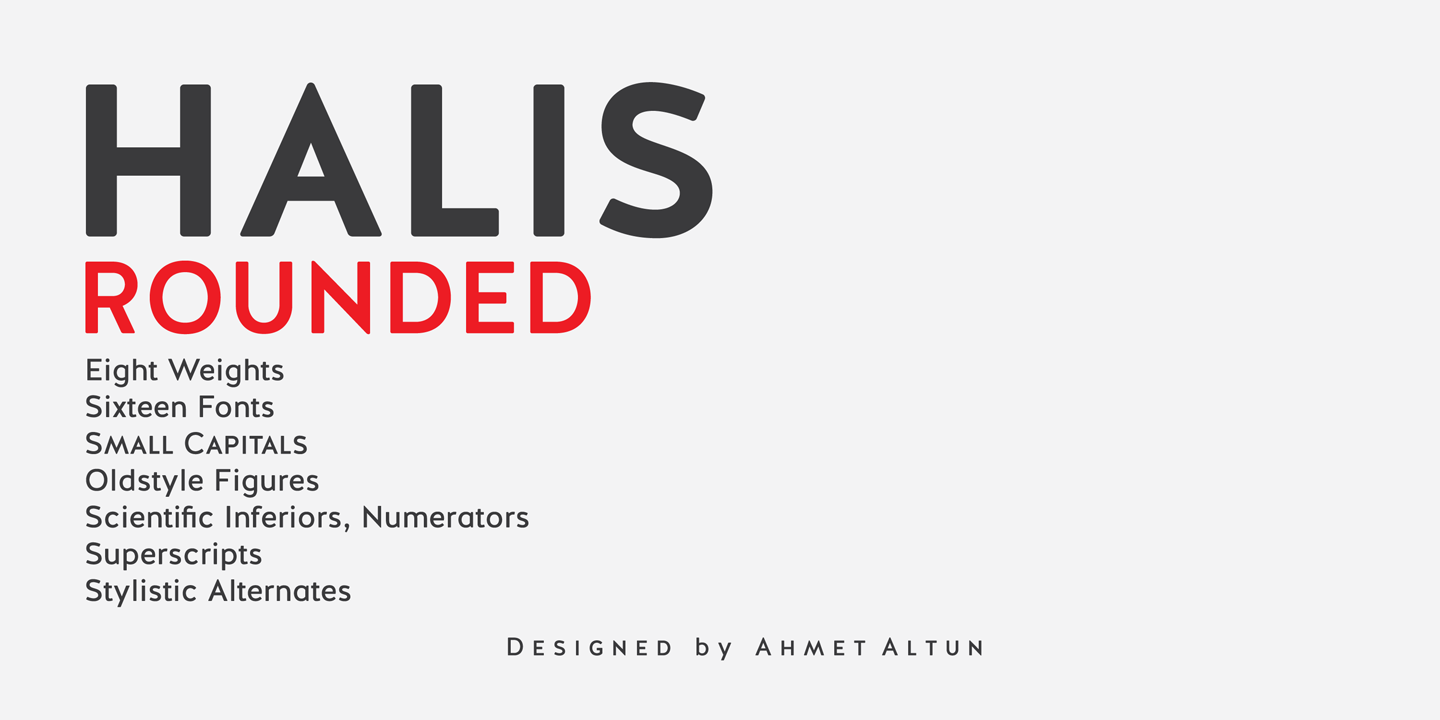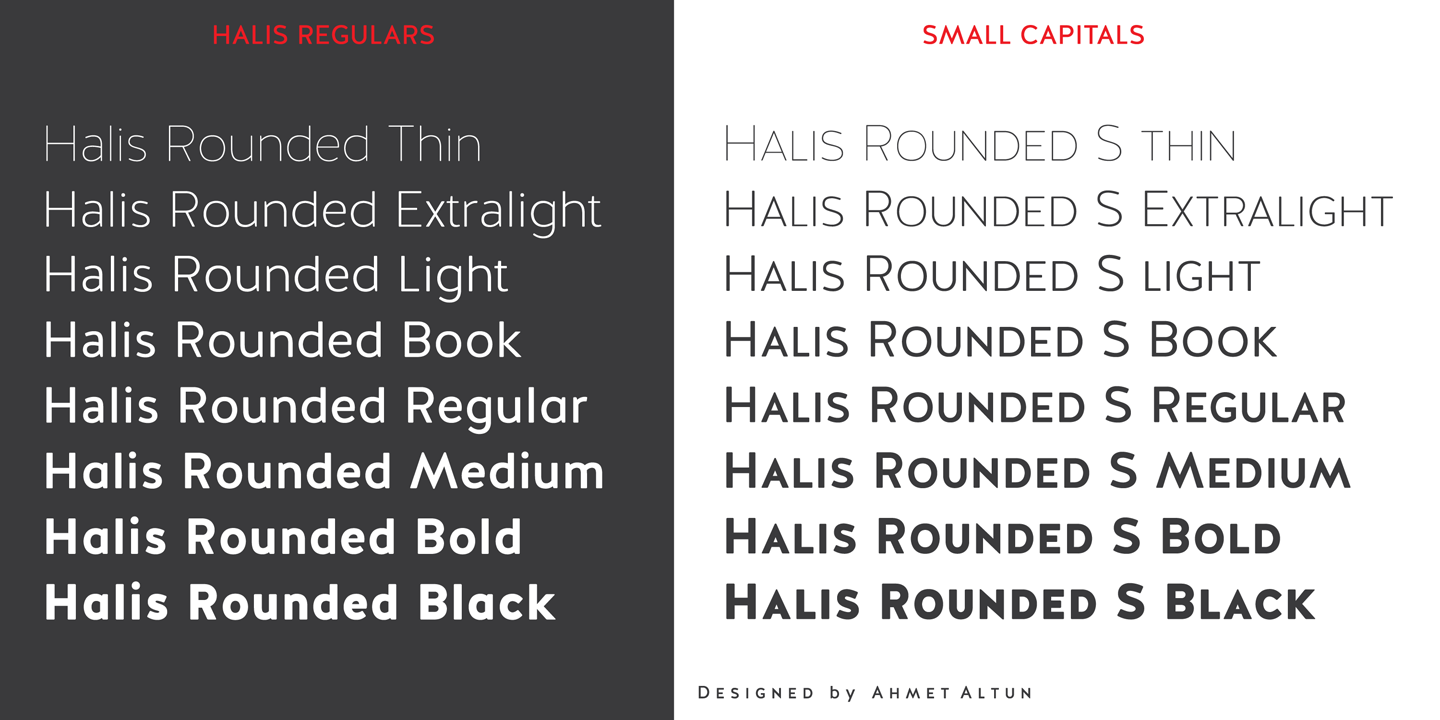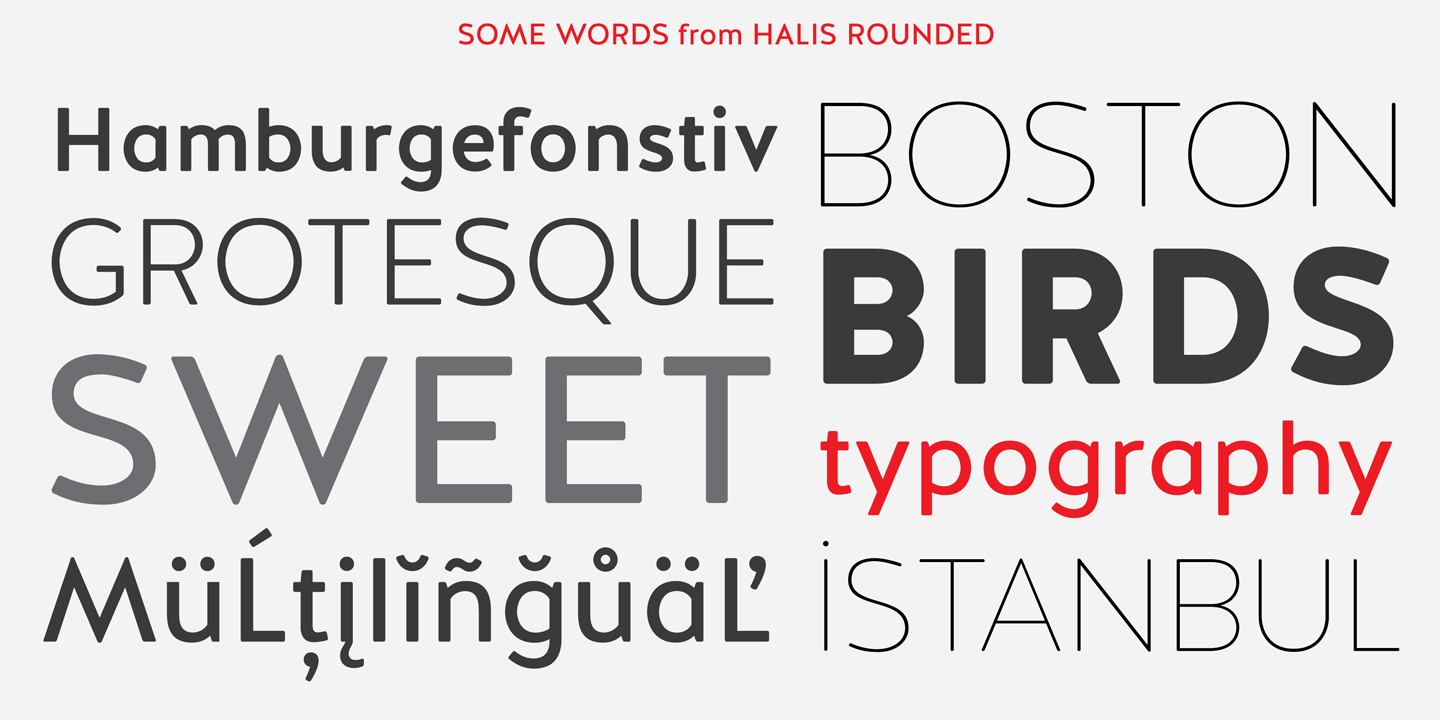
Halis Rounded is legible from very small size to very large ones and also suitable for letterpress. Thanks to small caps accommodation, this font family makes their use in web typography even easier. As with the small caps, all fonts can be used to create great works on the web as logos, texts, presentations etc. and in prints as posters, t-shirts, magazines, and notices.
Old-style Digits, Ligatures, Historical Forms, Alternates, Fractions, Superscript, Subscript
About Ahmet Altun
“I have been interested in type since my childhood,” says Turkey-based designer, Ahmet Altun. “So, during the new generation of the symbian phones, I got started writing software for the phones’ fonts and themes as a hobby. After that, I began to work on only font design professionally.”